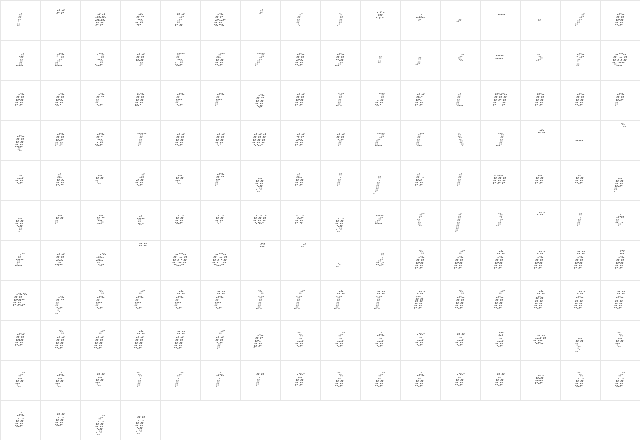
Asterix Light Italic Regular Font Preview
Design Context for Asterix Light Italic Typeface
Asterix Light Italic is a composed and adaptable typeface that performs quietly and consistently across a wide range of design contexts. The dynamic lean of this cut emphasises speed and emphasis in any layout. Its slender proportions lend an understated elegance to any composition.